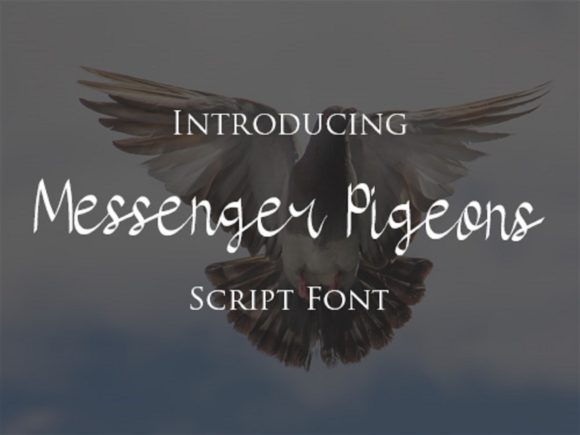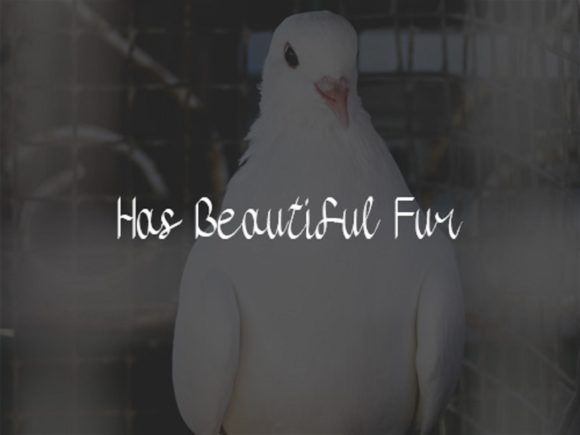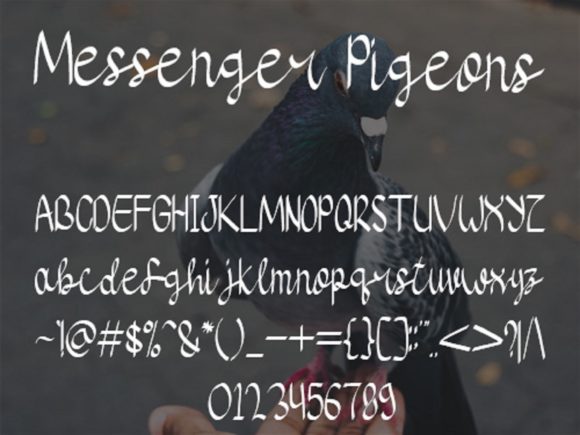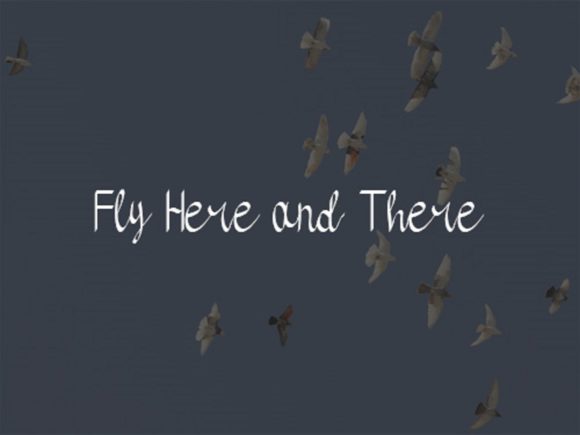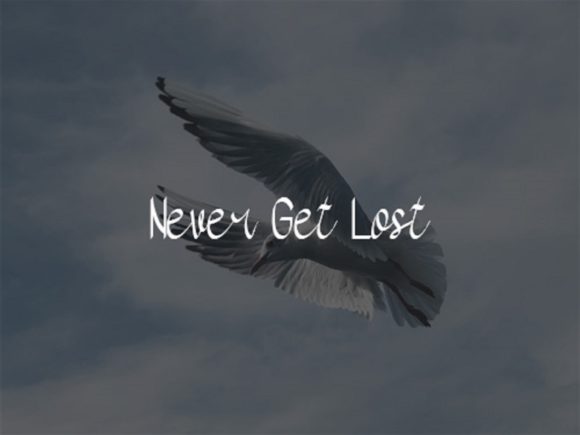
Messenger Pigeons Font
About Messenger Pigeons Font
Messenger Pigeons is a magical script font carefully created with a touch of elegance. Whether you’re looking for fonts for Instagram or calligraphy scripts for DIY projects, this font will turn any creative idea into a true piece of art!